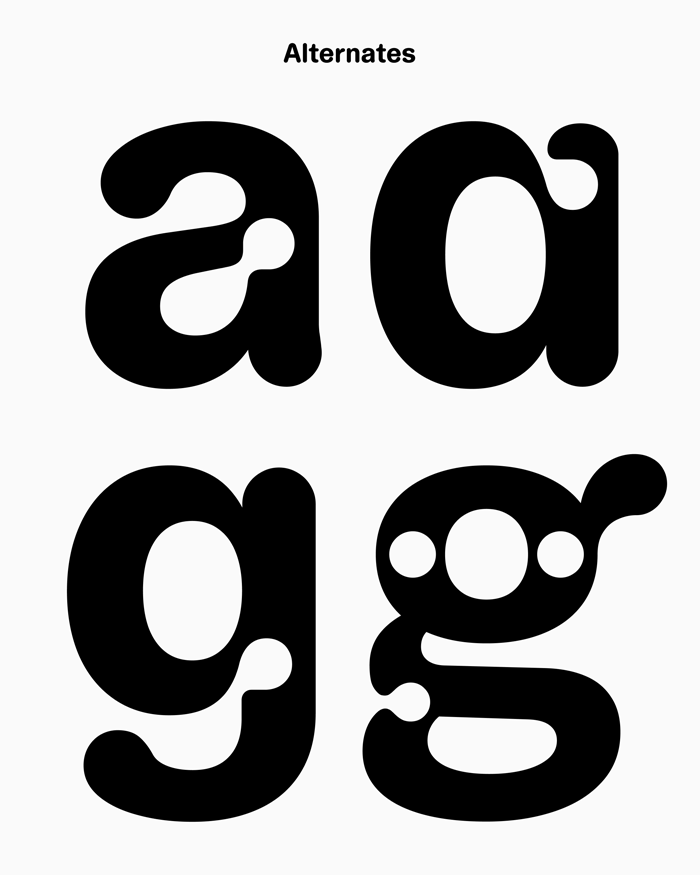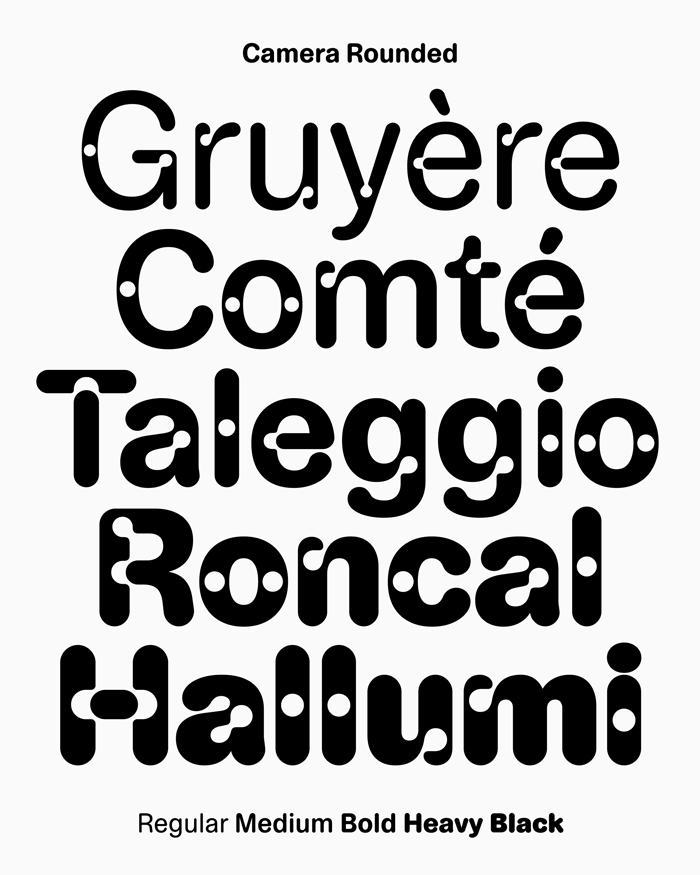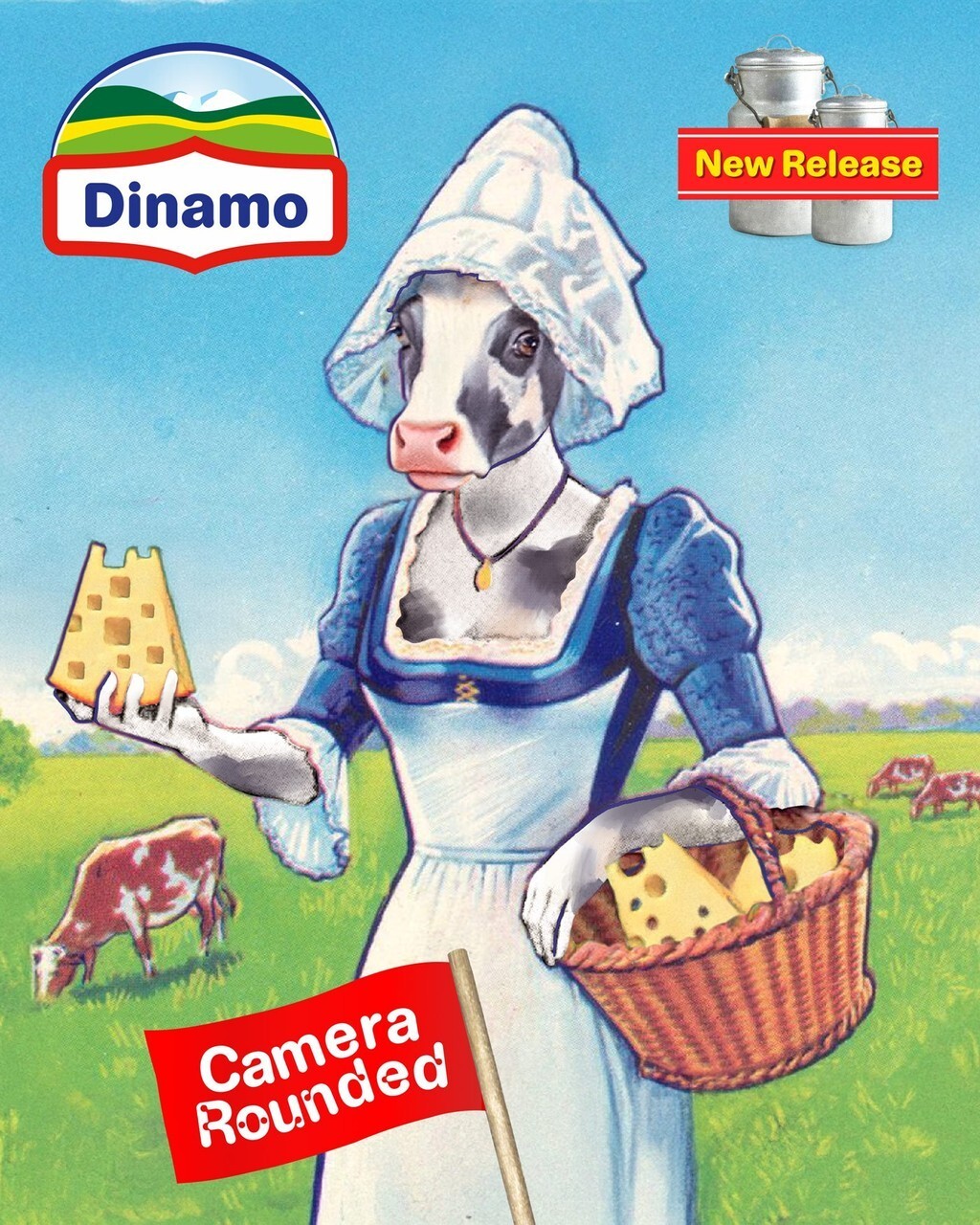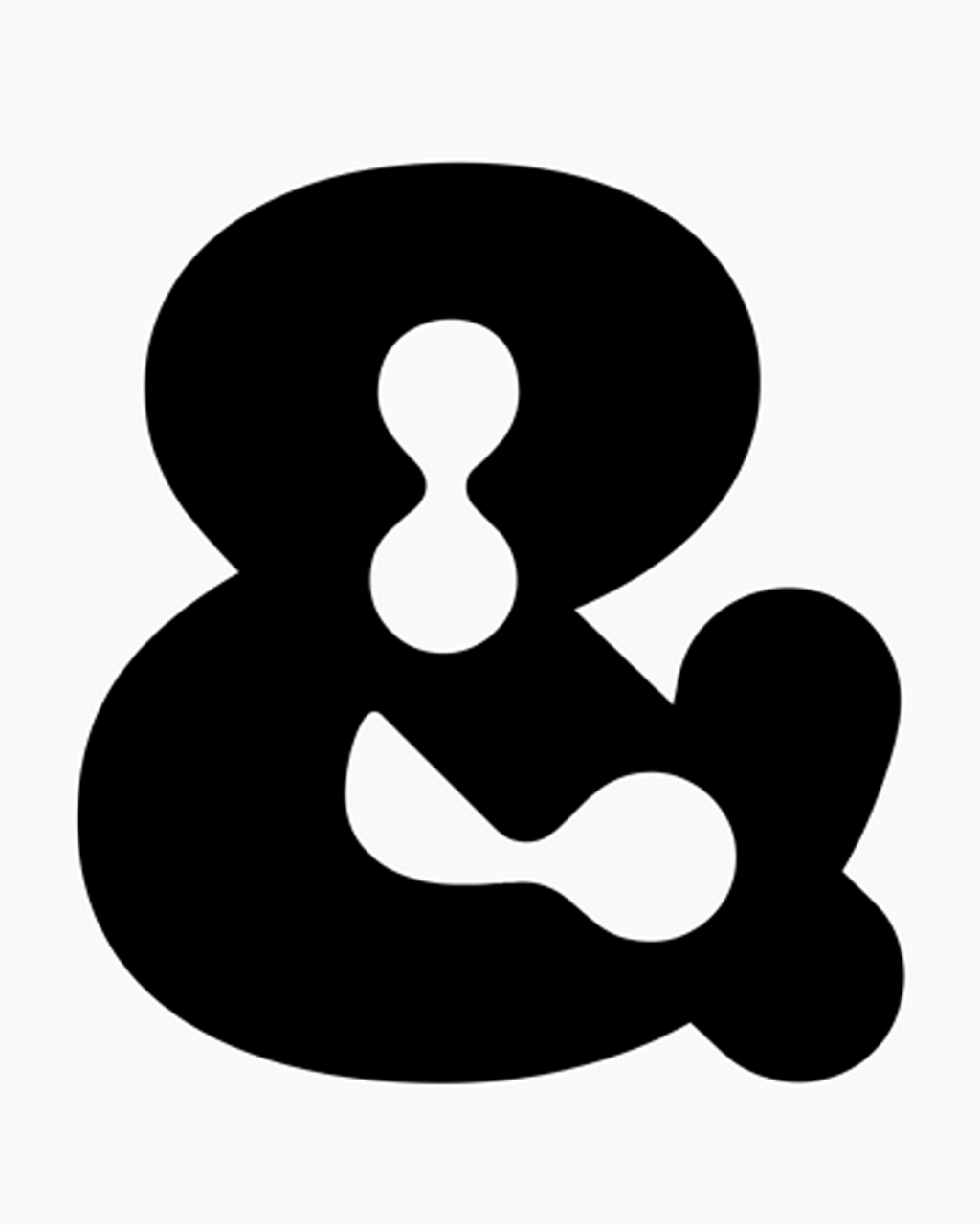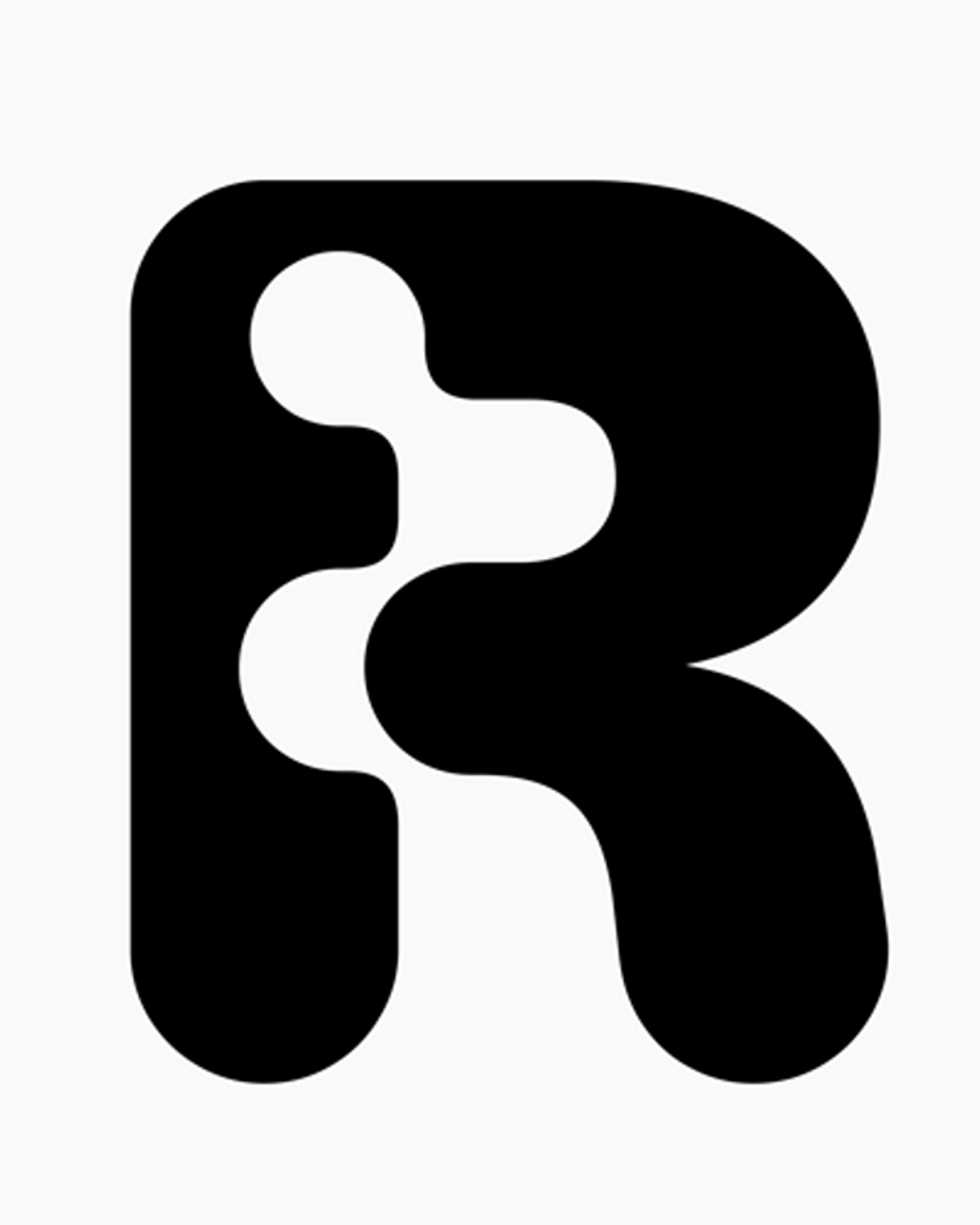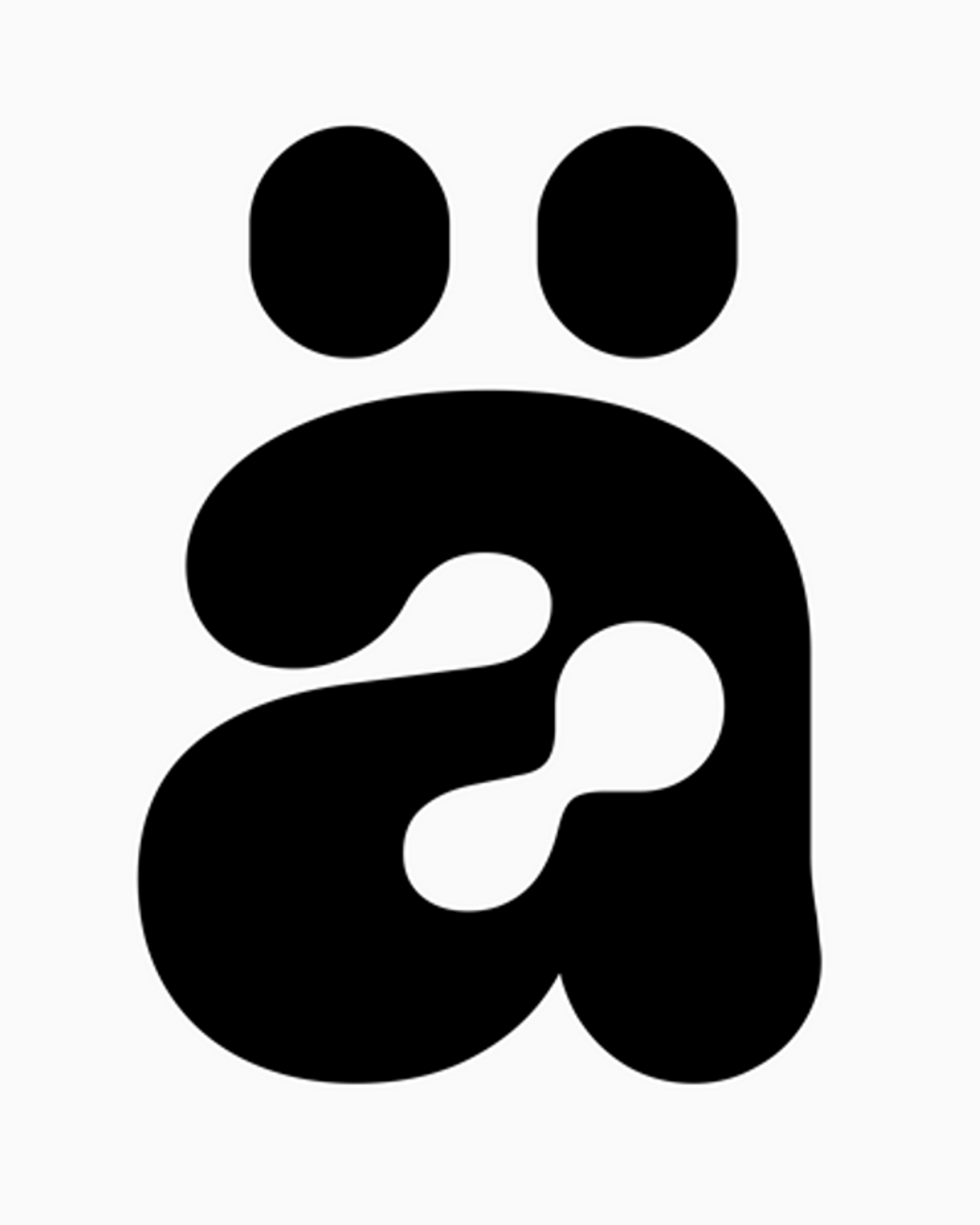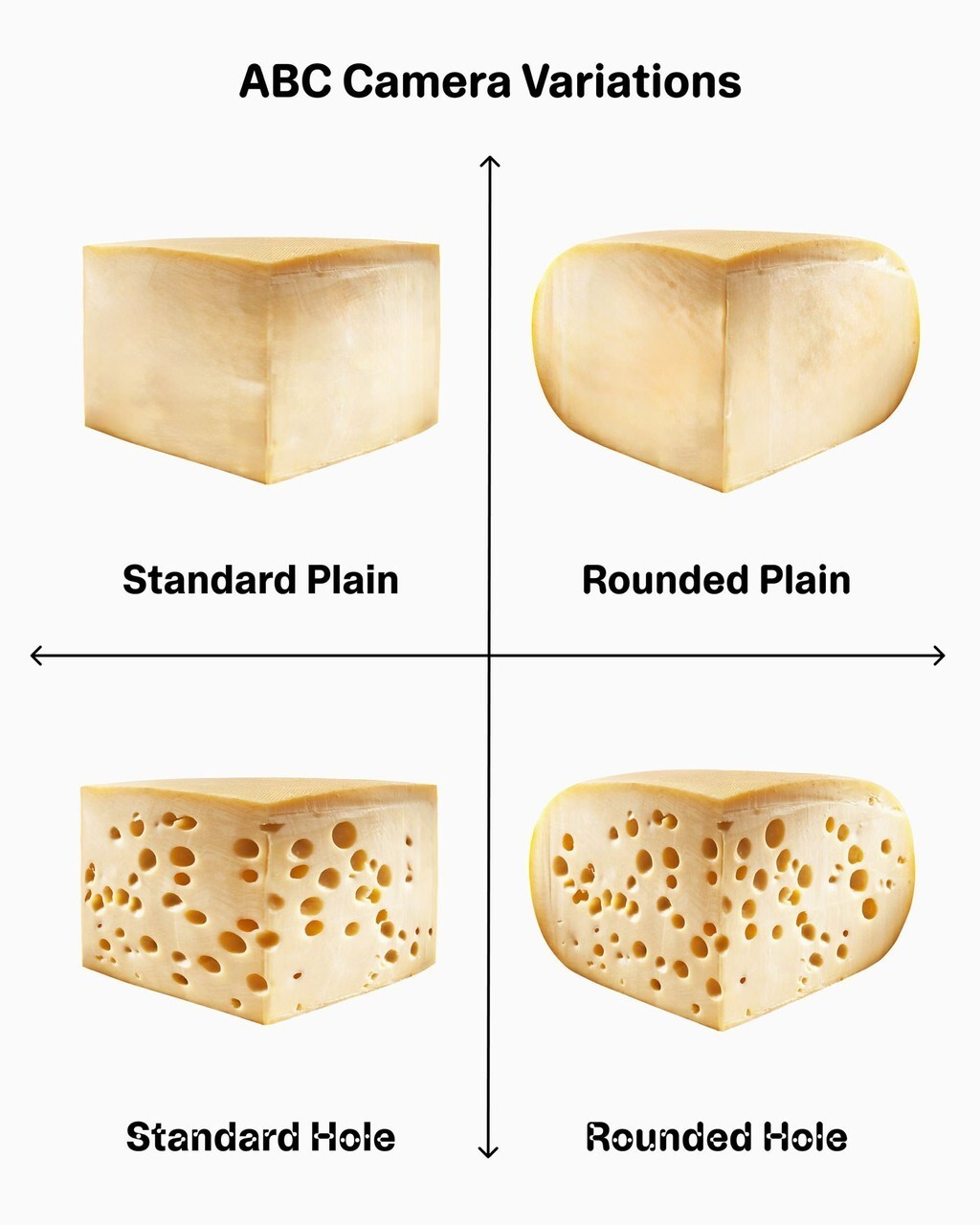
Camera Rounded, The Rounded Companion to ABC Camera
WELCOME ABC CAMERA ROUNDED
Today we’re releasing Camera Rounded, the rounded companion to ABC Camera.
In doing so we’re continuing the slow but steady expansion of a typeface that started by looking closely at something that was … never meant to be seen 😳 🙄
CONCEPT
The idea behind ABC Camera is the reinterpretation of ink traps, a typographic trick from the 60s and 70s that helped text survive the blur of early, low-res TV screens. The screen would fill in the gaps, making letters look complete. Today those traps are technically obsolete, but the circular holes were too beautiful to ignore, an unintentionally bold visual feature we decided to scale up and revisit for digital use today.
AESTHETICS
In terms of shape, Camera sits somewhere near a classic grotesque, but with a narrower body, freer proportions, and a slightly looser attitude. Camera Rounded takes this further by softening the outlines, taking the family toward a warmer, more playful place.
Along the way, we’ve also added monospace styles to both Camera and Camera Rounded, opening up the possibility of sprinkling in a bit of technical flavor. Plus, all versions are available without the holes, for those who prefer things a little more waterproof.
PRACTICALITIES
All of Camera’s subfamilies share the same underlying structure and DNA, which means they can be combined and thrown together beautifully. And there’s a couple of alternate glyphs baked into the fonts (a t G R) that you use to customize your own version using our free Font Customizer tool.